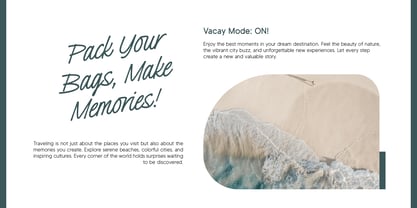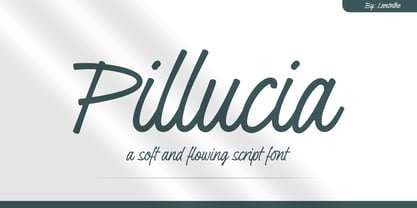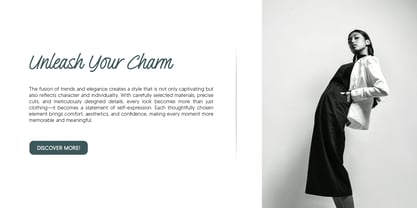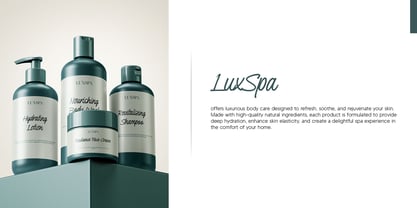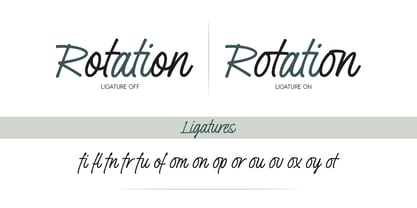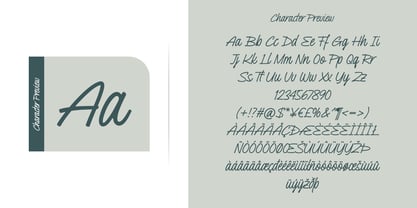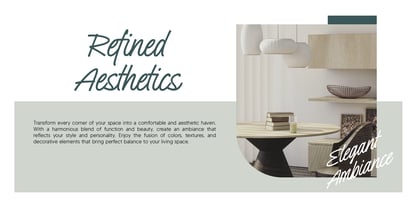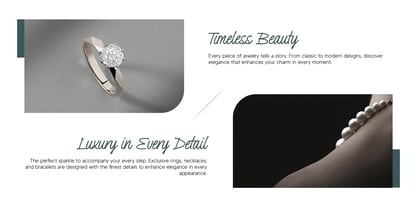
Pillucia
by Lemonthe
The Pillucia Font Family was designed by Dwi Ahidian and published by Lemonthe. Pillucia contains 1 styles. More about this family
Pillucia is a script font with a soft and flowing appearance. It features smooth letterforms that are easy to read, making it suitable for various purposes such as branding, invitations, product packaging, and more. With a simple yet elegant design, Pillucia adds a professional touch to any project.
Designers: Dwi Ahidian
Foundry: Lemonthe